W loop mark
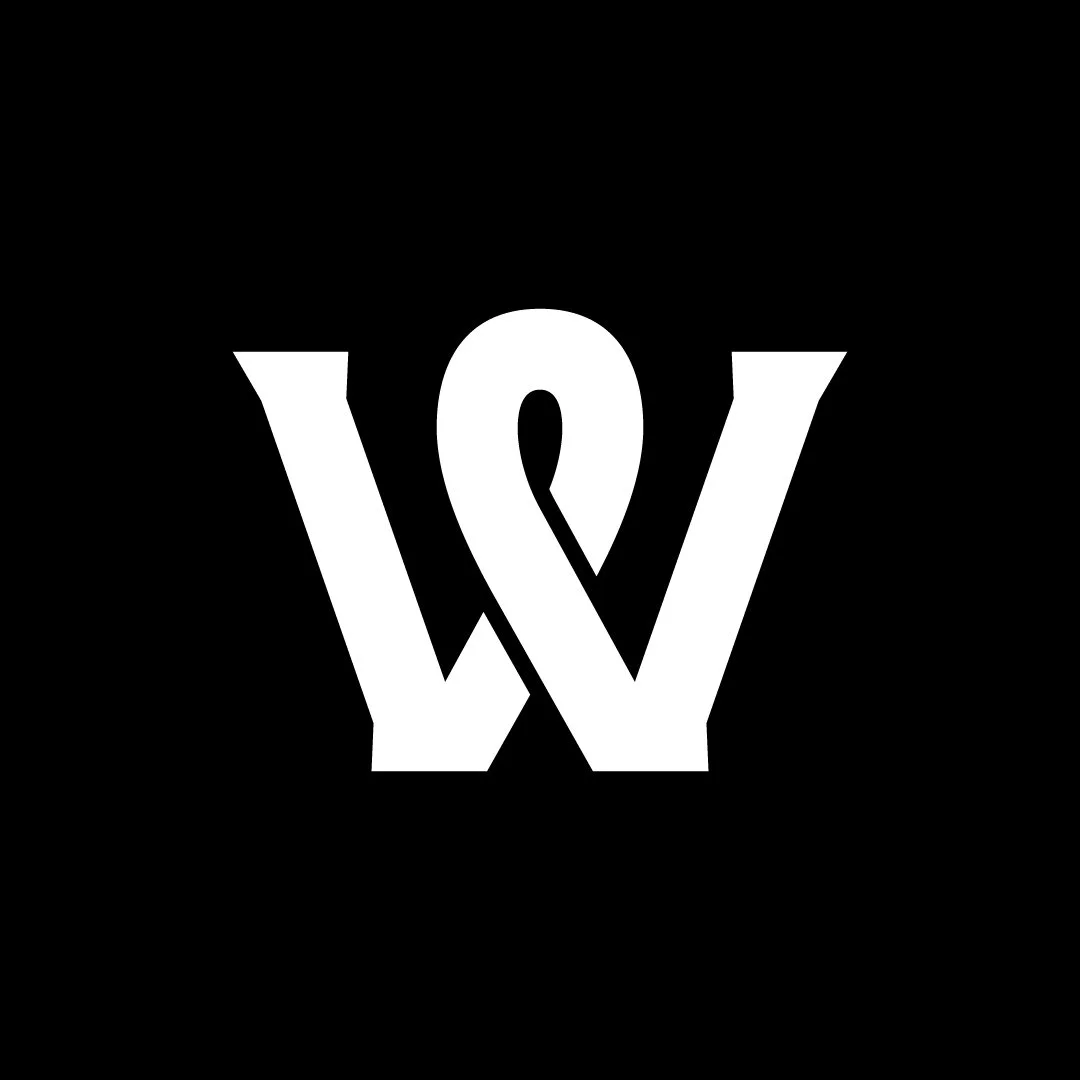
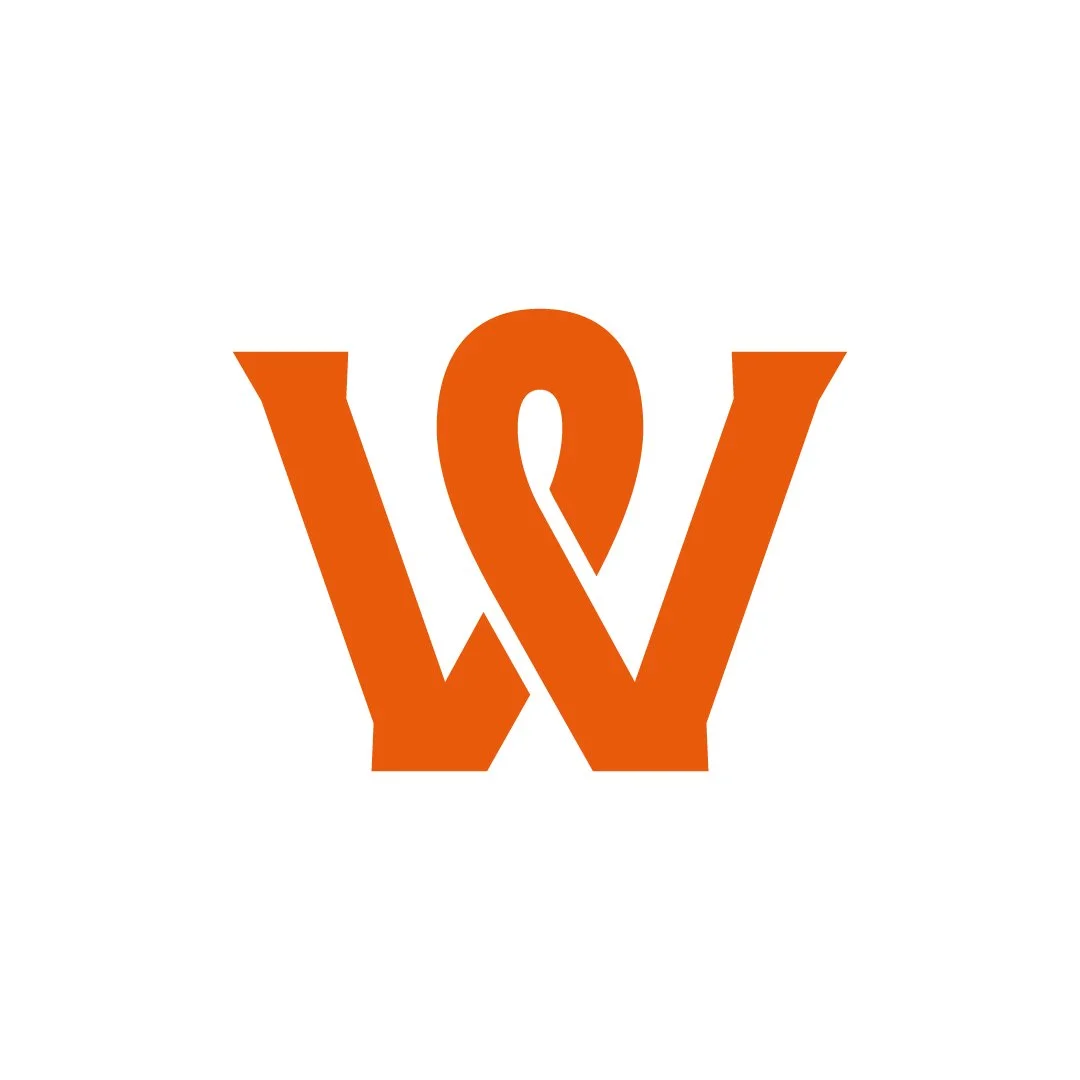
W loop mark
A solid letter “W” with a loop in the middle. Has fine pointed serifs and stencil cuts. Could fit businesses in law, accounting, banking, finance, insurance, etc.